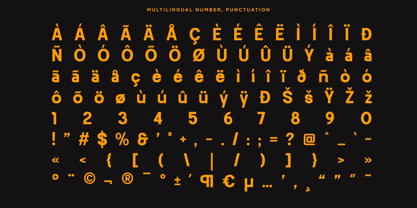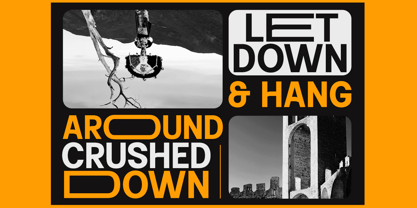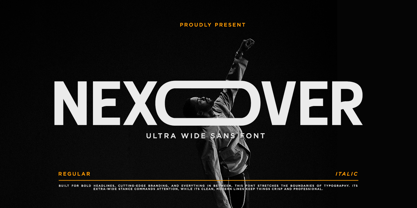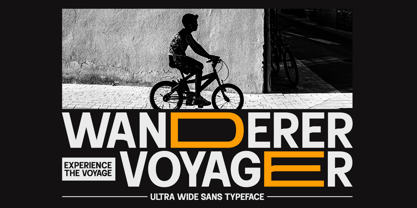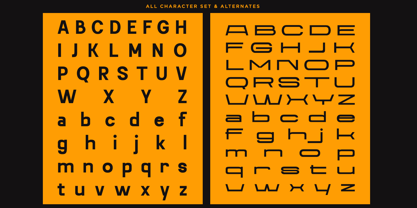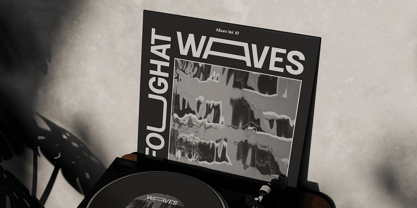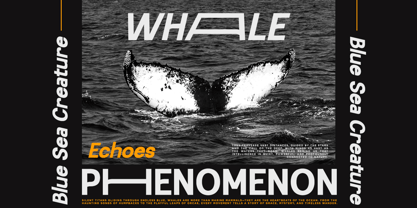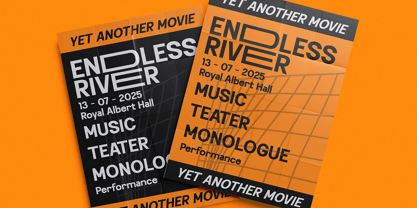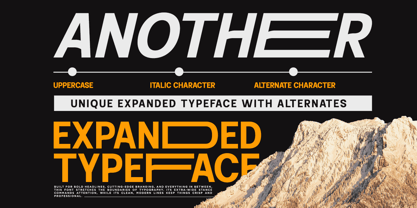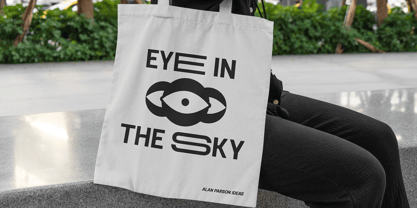
Nexover
by RagamKata
The Nexover Font Family was designed by Yogiswhara Dio Prakoso Riadi and published by RagamKata. Nexover contains 2 styles and family package options. More about this family
Nexover is a ultra-wide sans-serif typeface with a modern and futuristic style. Designed for posters, headlines, branding, and editorial use, it features clean lines, strong geometric shapes, and unique alternate characters for a striking visual impact. Perfect for branding, logo, website, social media, headline, and even sentences. This font supports uppercase, lowercase, multilingual accents, and a range of punctuation and symbols. This Nexover font is include set of : - Nexover Regular - Nexover Italic - Multilingual Support - Alternates Character Thanks for looking for our products and have a nice day !